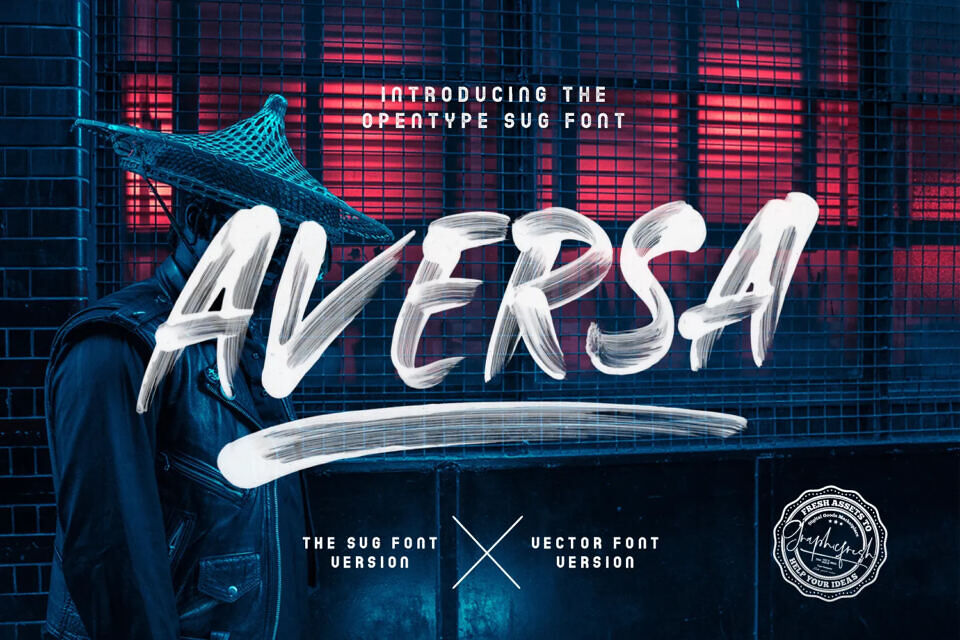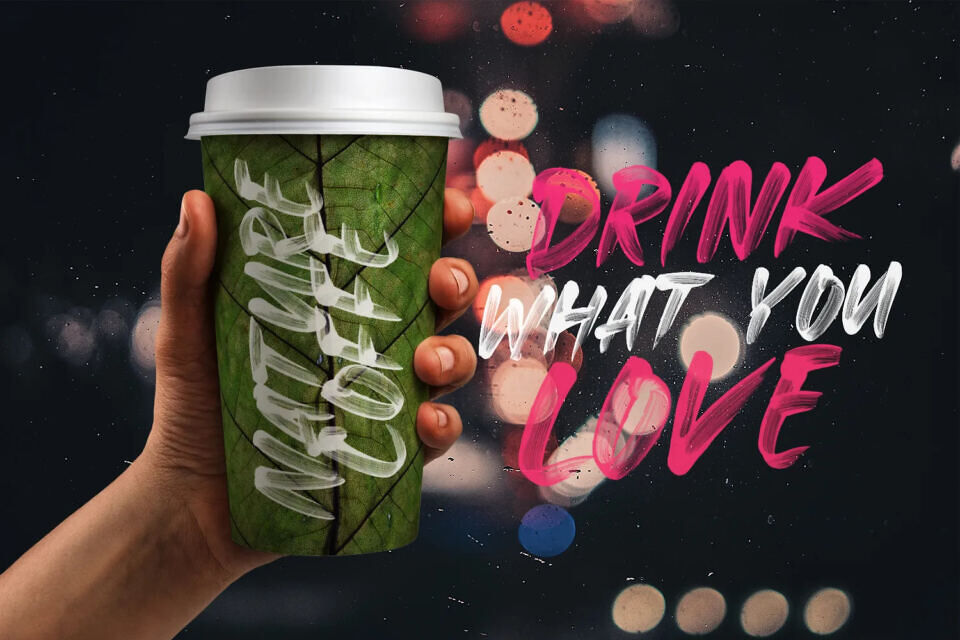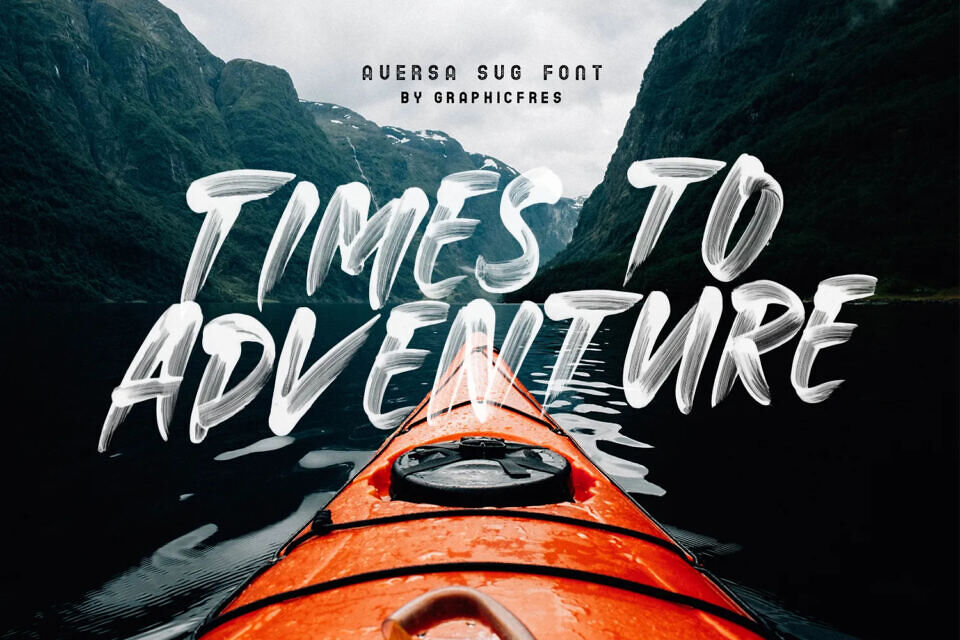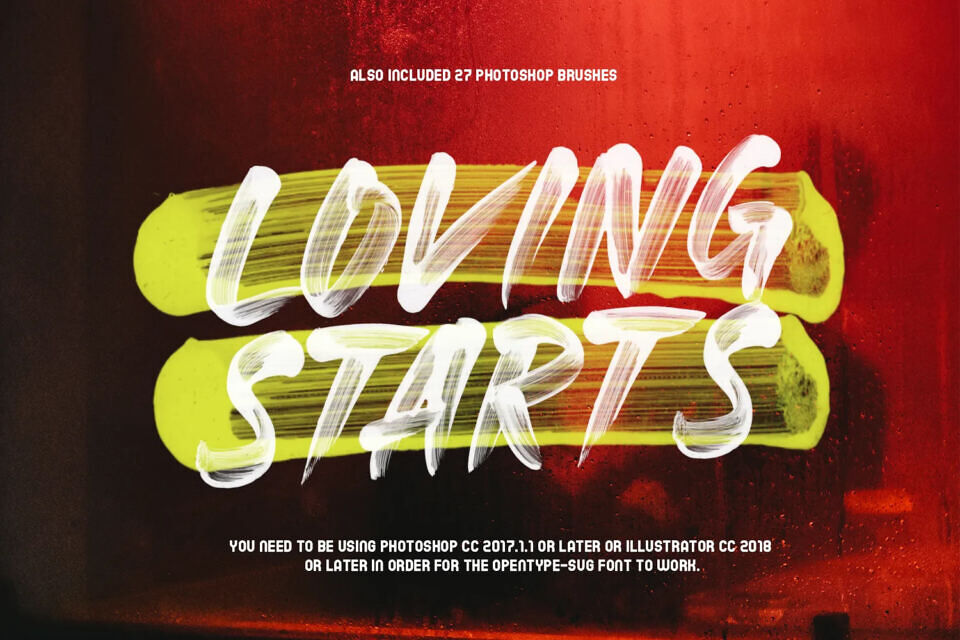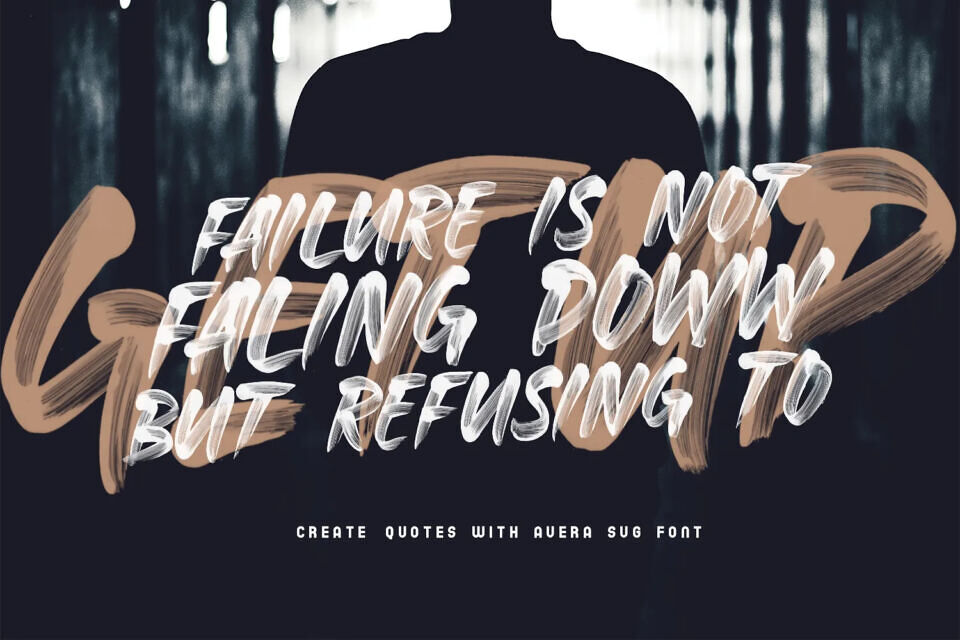
Aversa is a bold and urban display font with a contemporary feel. It will turn any design project into a true stand out. The is made with brush strokes, dipped in paint. Then it was written on a best paper and scanned with high resolution. So that it doesn’t remove the paint element.
It will be perfect for posters, packaging, advertisements, headlines, branding, signboards, and whatever else you want from an urban look and feel.